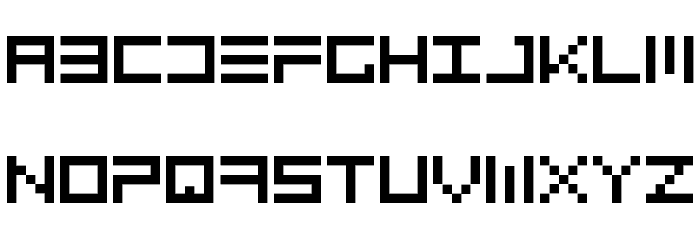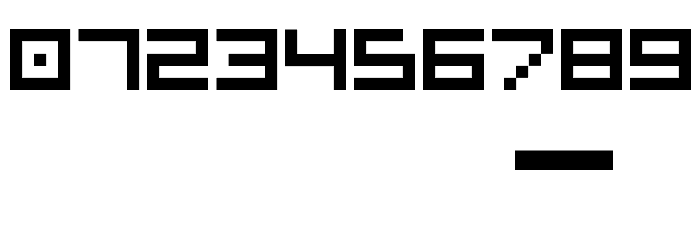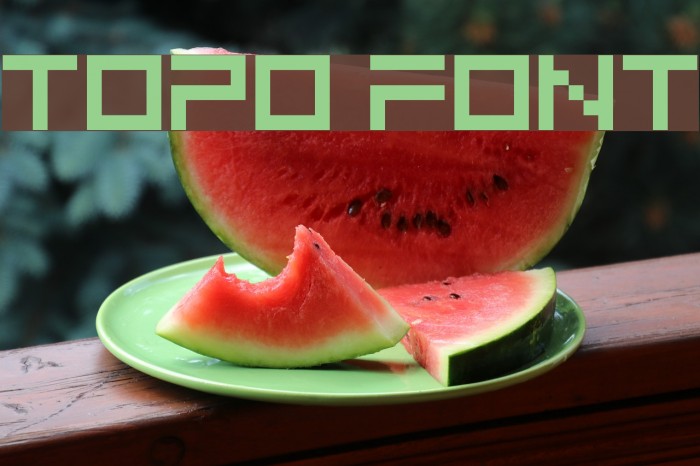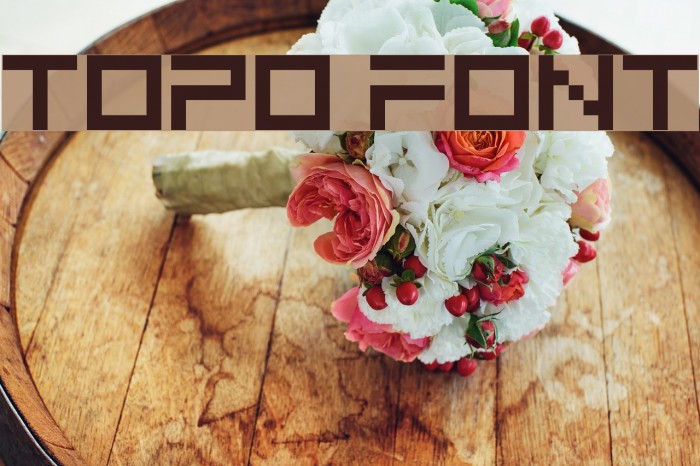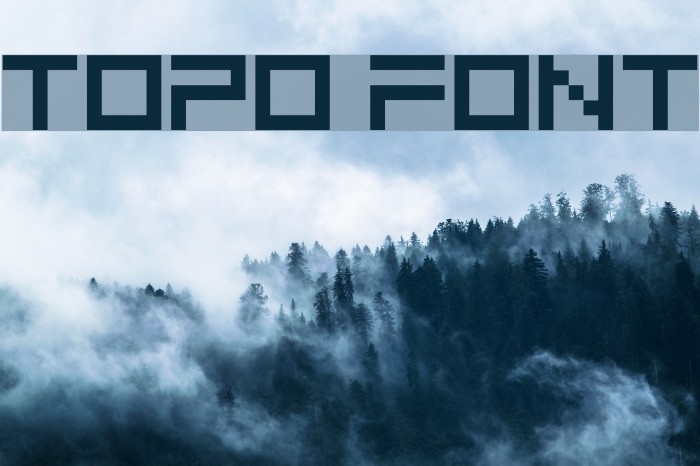
Topo Font
This font features a pixelated, blocky style reminiscent of early digital displays and retro video games. Each character is constructed with uniform square blocks, giving it a distinctly geometric and mechanical appearance. The uppercase and lowercase letters maintain a consistent height, contributing to a monospaced feel, although the font itself is not strictly monospaced. The numbers and special characters follow the same design principles, ensuring uniformity across the character set. This font's rigid and structured design makes it ideal for projects that aim to evoke nostalgia or a tech-oriented aesthetic.
A pixelated, blocky font inspired by retro digital displays.
- Proposed Projects: Ideal for retro video game designs, tech-themed posters, digital art projects, and any creative work that seeks to capture a nostalgic or futuristic digital aesthetic.
- Overall Style: Retro, Digital